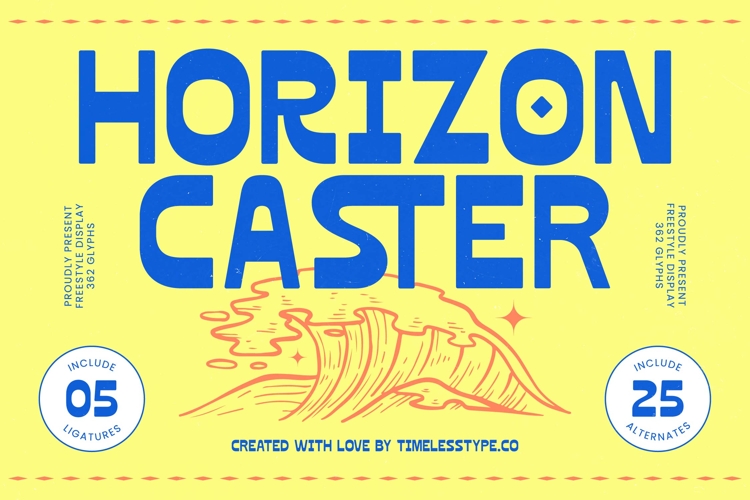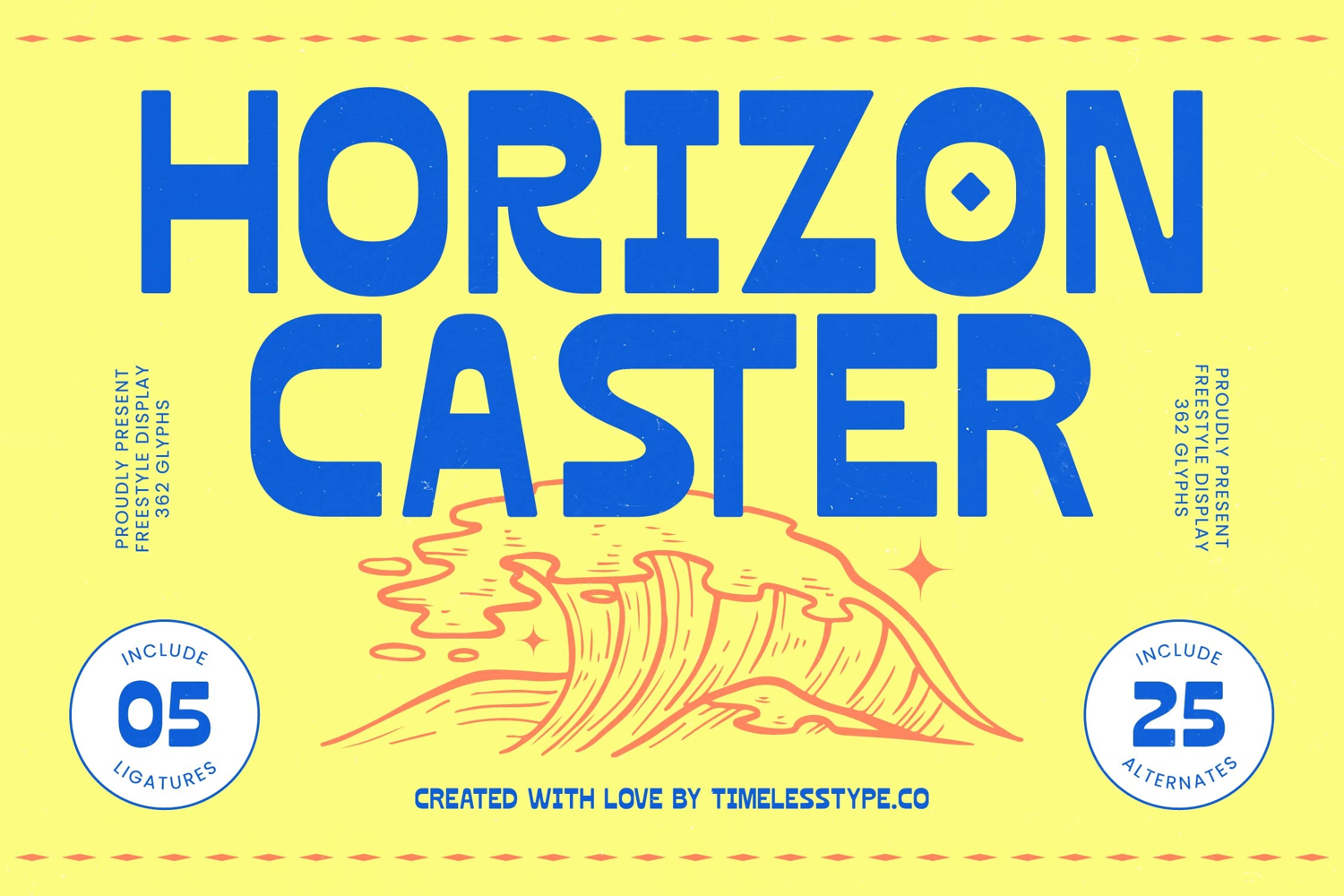
Horizon Caster - Freestyle Display Font
Unlock immediate visual impact with Horizon Caster - Freestyle Display Font. This bold and dynamic typeface captures a retro-inspired display aesthetic, designed to command attention and infuse your projects with a unique, energetic vibe. Its confident, blocky letterforms possess an inherent playfulness while maintaining a professional appeal, making it perfect for creating memorable headlines and distinctive branding.
Experience unparalleled creative flexibility with Horizon Caster - Freestyle Display Font. Boasting a robust set of 362 glyphs, including 05 ligatures and an impressive 25 alternates, this font empowers designers to craft truly customized typography. The carefully considered character variations offer a wealth of choices, ensuring your designs always feel fresh, original, and perfectly tailored to their purpose, enhancing its overall versatility.